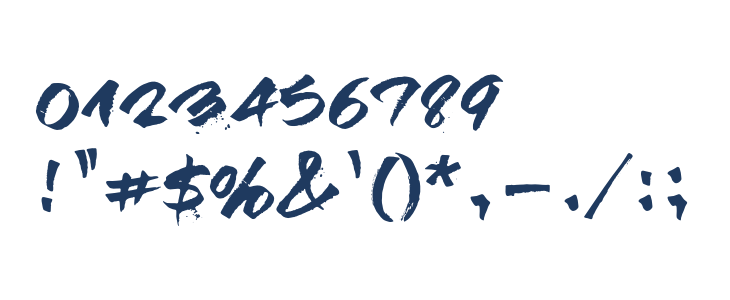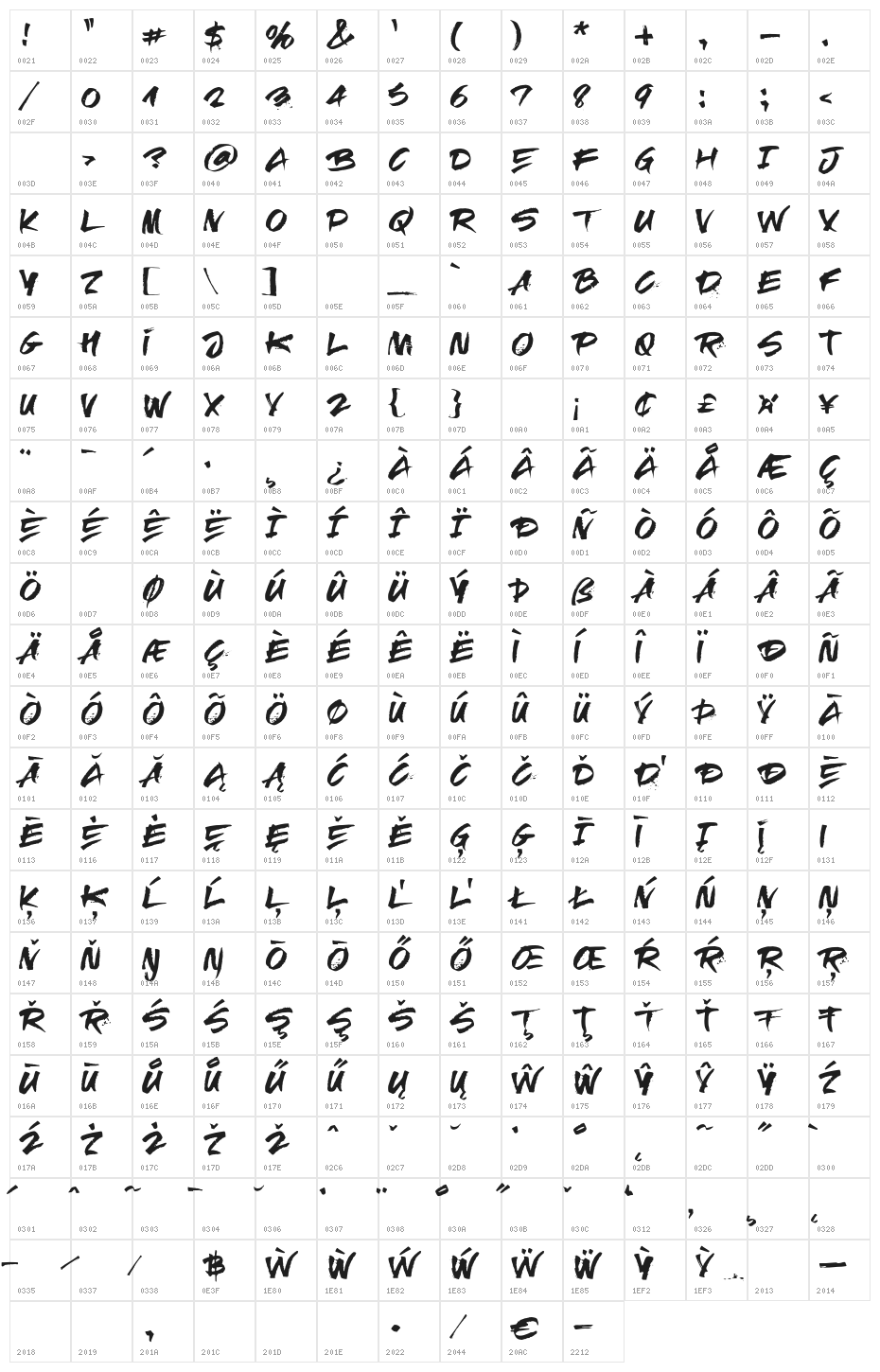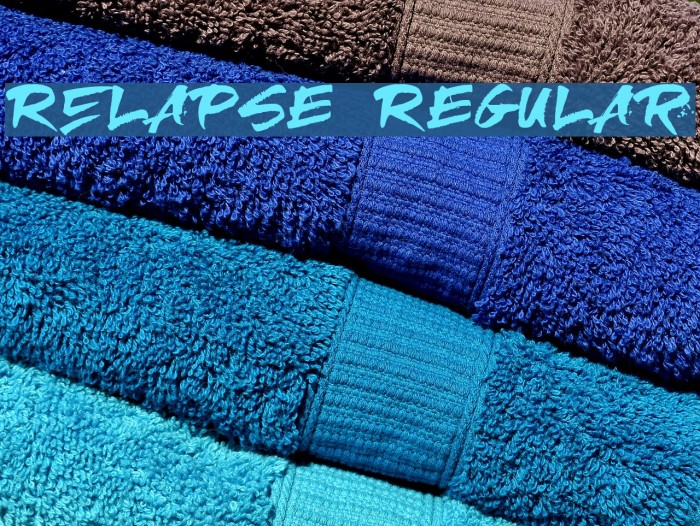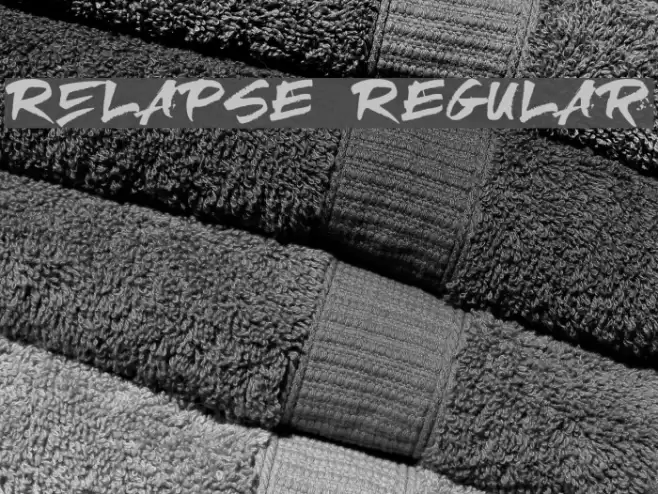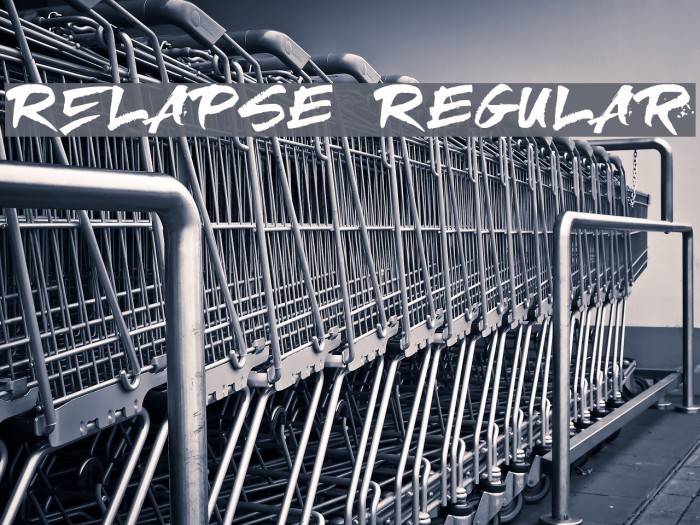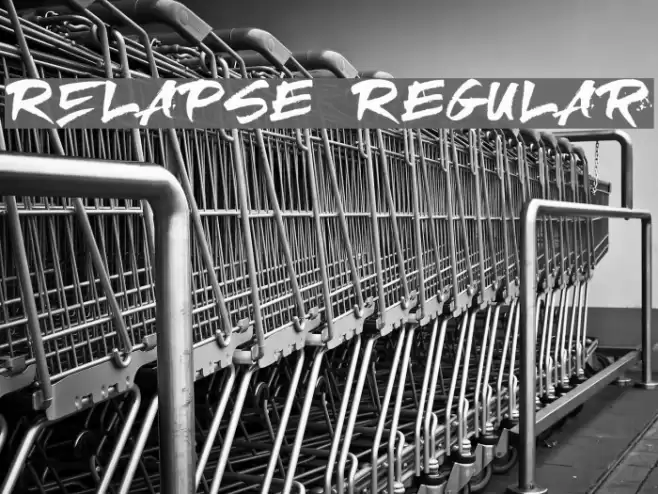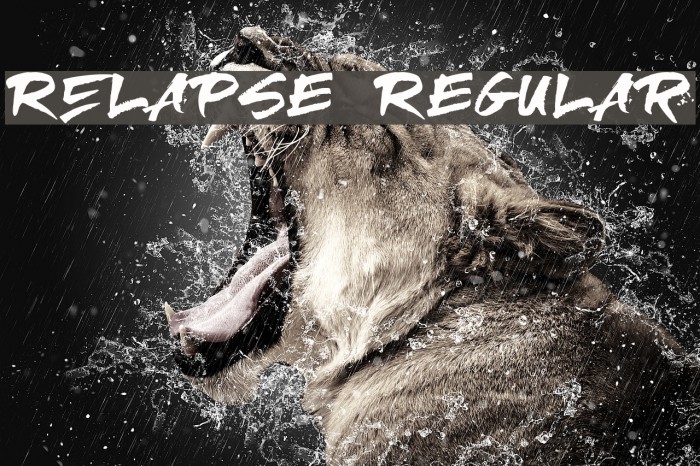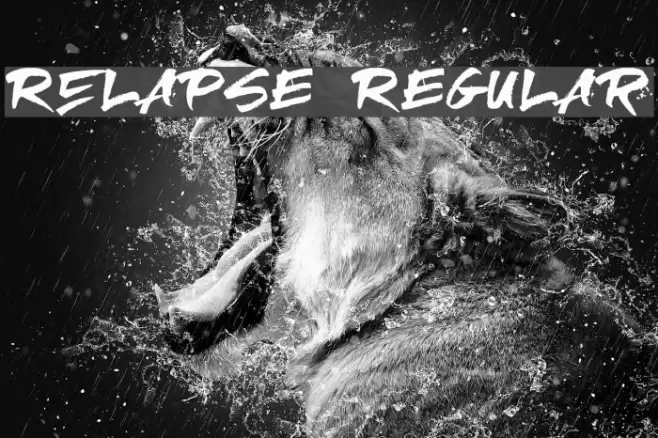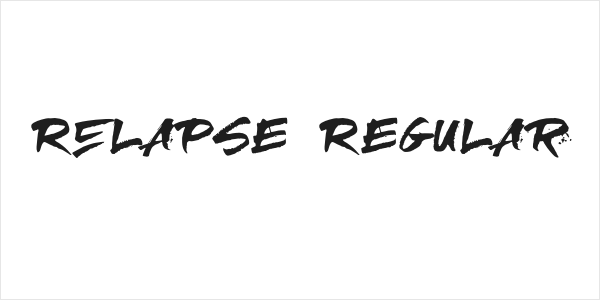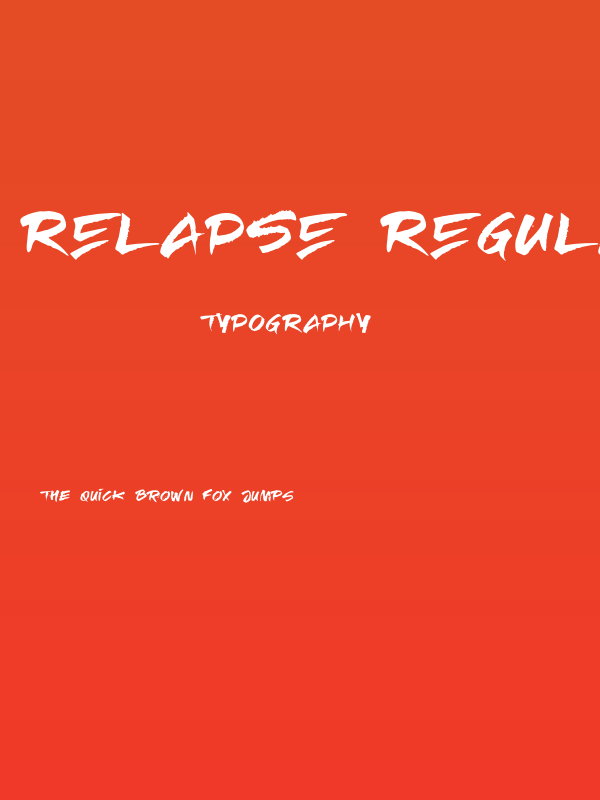
RElapse Regular Font
RElapse Regular Description
This font features a bold, expressive style with a brush-like texture that gives it a dynamic and energetic appearance. The strokes are uneven and have a hand-painted quality, adding a sense of movement and spontaneity. The characters are slightly slanted, enhancing the casual and informal feel. The uppercase and lowercase letters maintain a consistent style, with some variations in stroke thickness that contribute to a lively and artistic look. The numbers and special characters follow the same aesthetic, ensuring a cohesive design throughout.
| Proposed Projects | Ideal for projects that require a bold and artistic touch, such as posters, album covers, branding for creative industries, or any design needing a lively and informal vibe. |